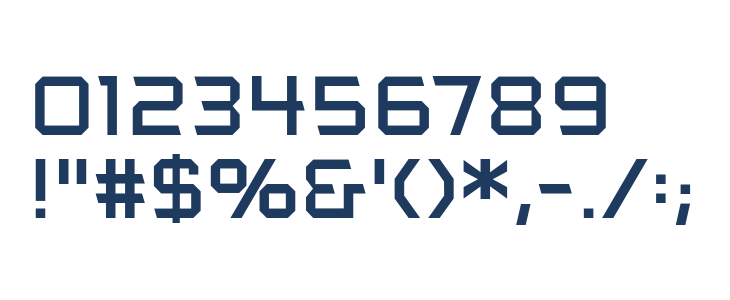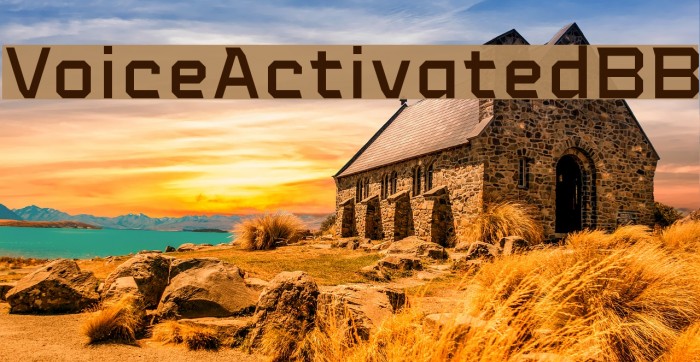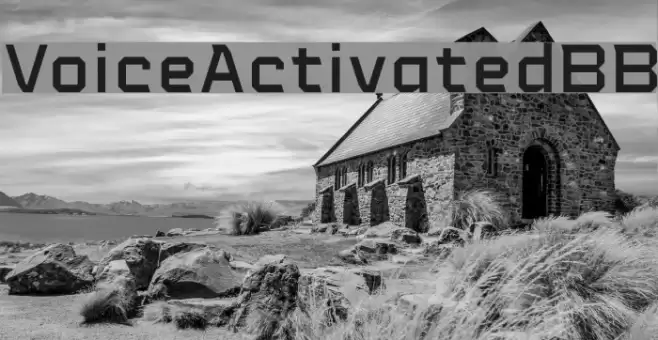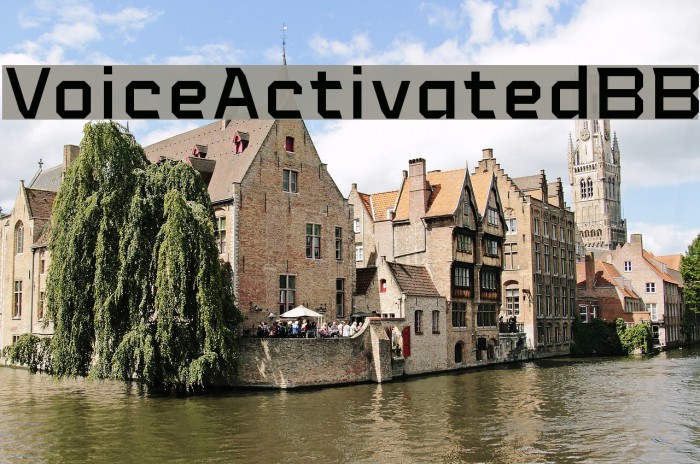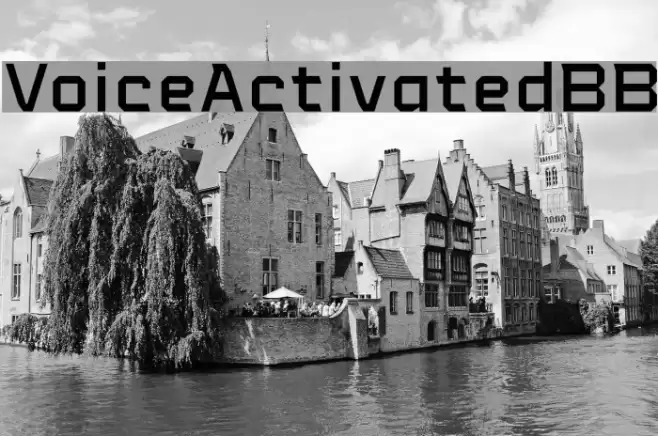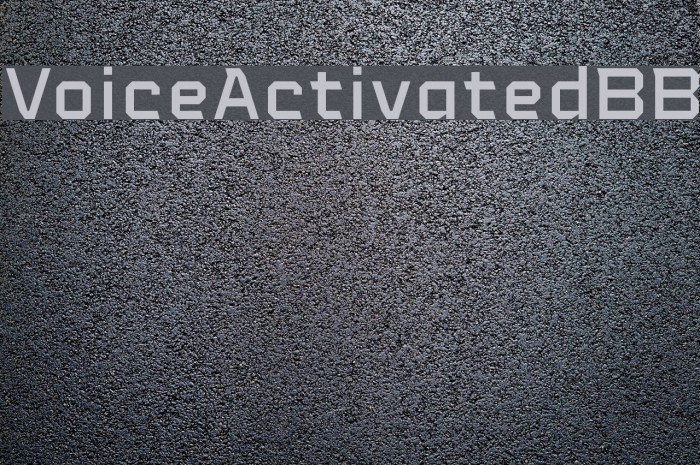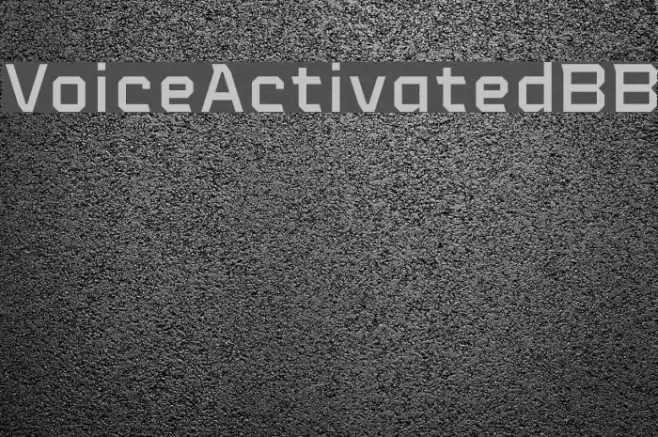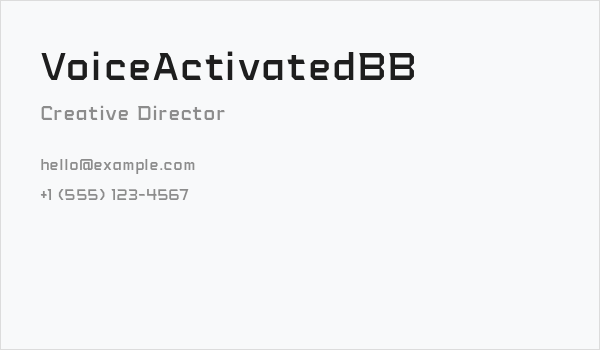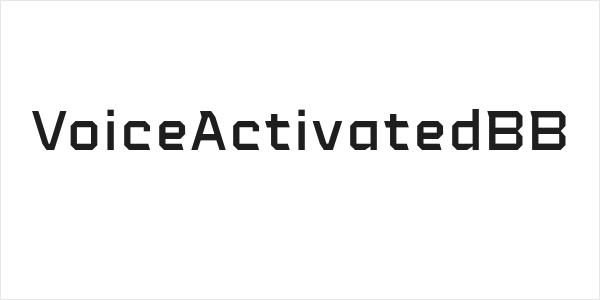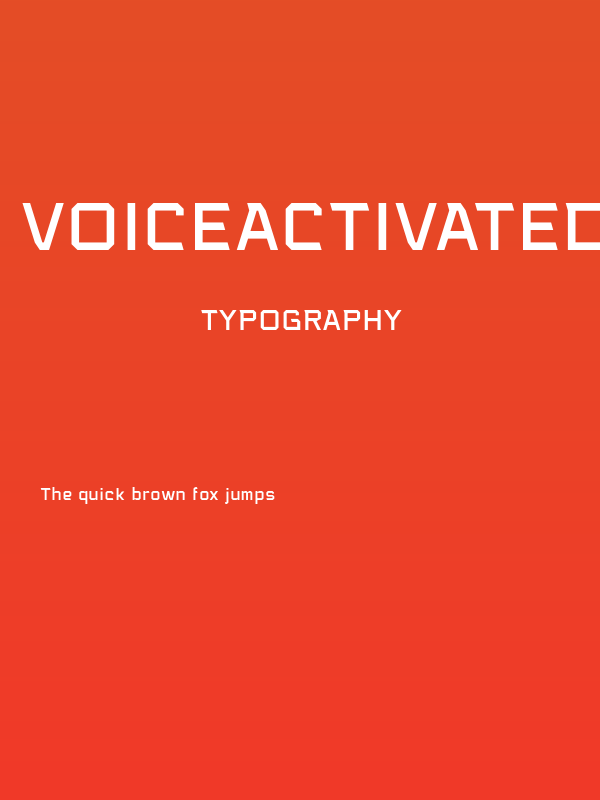
VoiceActivatedBB Font
VoiceActivatedBB Description
This font features a bold, geometric design with a modern and futuristic aesthetic. The characters are constructed with sharp angles and straight lines, giving it a digital and technical feel. The uppercase and lowercase letters maintain a consistent style, with a uniform height and width that enhances readability. The numerals and special characters follow the same geometric pattern, ensuring a cohesive look across all text. The font's structure is clean and precise, making it suitable for digital interfaces and technology-themed projects.
| Proposed Projects | Ideal for technology branding, digital interfaces, video game design, and futuristic posters. |